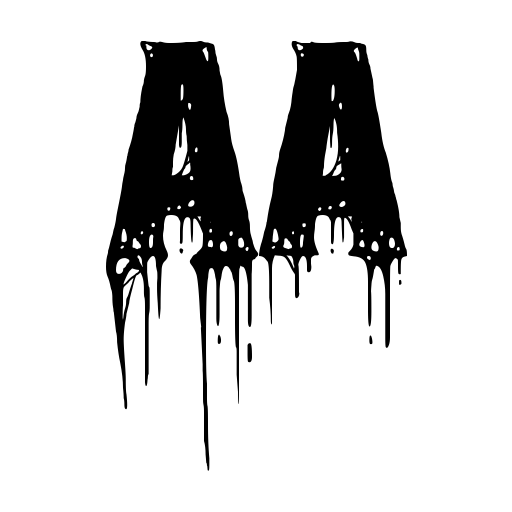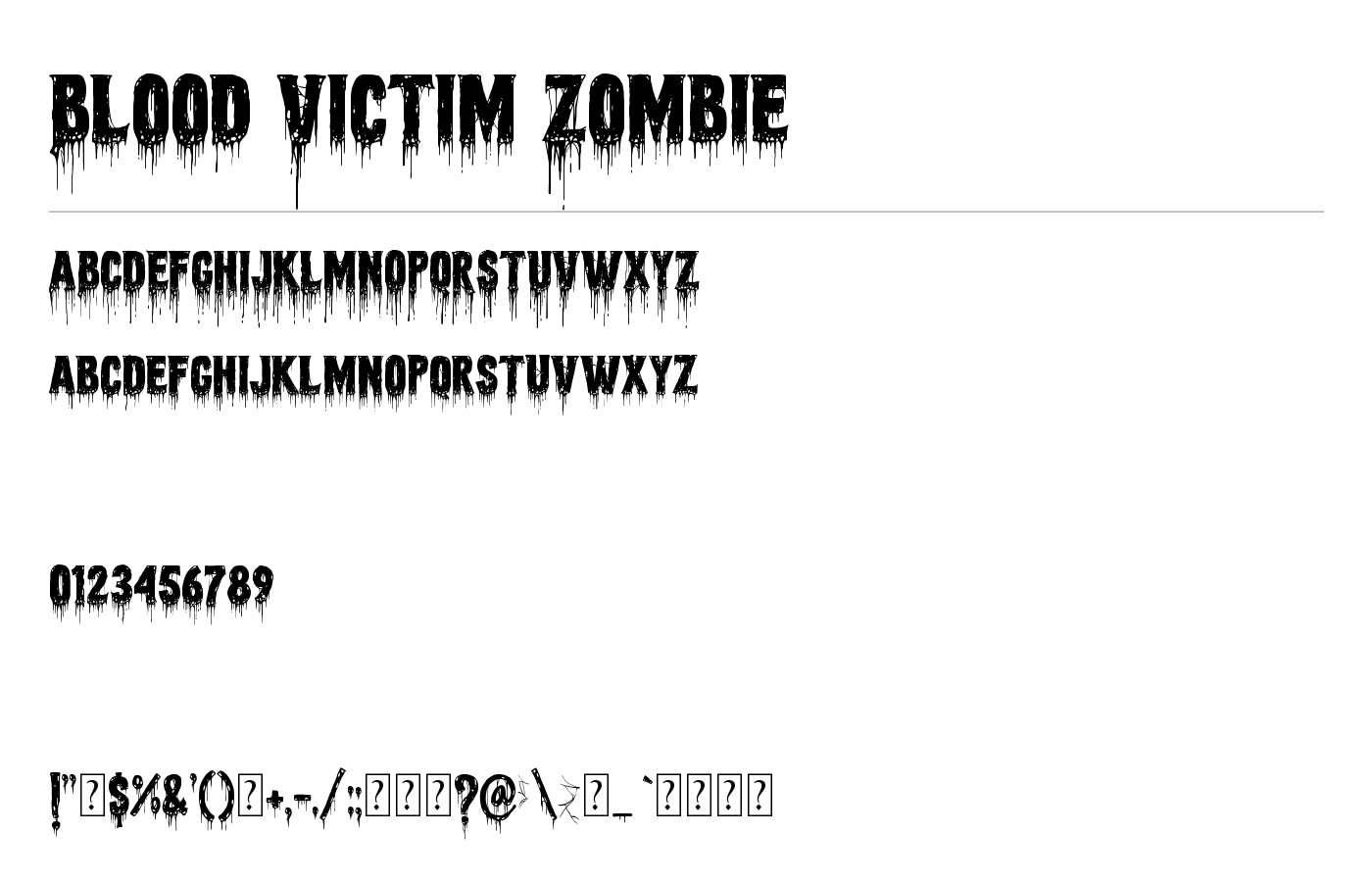
Blood Victim Zombie is a bold, decorative display font with a horror-inspired theme, characterized by its dripping, irregular edges that mimic oozing blood or slime. Its all-caps design, heavy weight, and jagged texture give it a gritty, eerie feel perfect for Halloween, zombie-themed projects, or any creative work seeking a spooky, dramatic impact. This font works best in headlines, posters, or logos where a strong, chilling atmosphere is desired.
Blood Victim Zombie Font
About Blood Victim Zombie Font
| Font family | Blood Victim Zombie Font |
| Designer | Muhammad Sirojuddin |